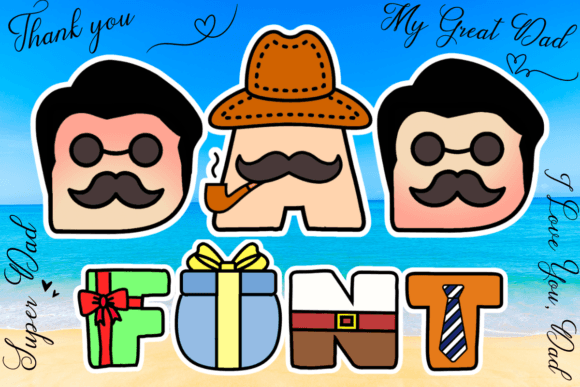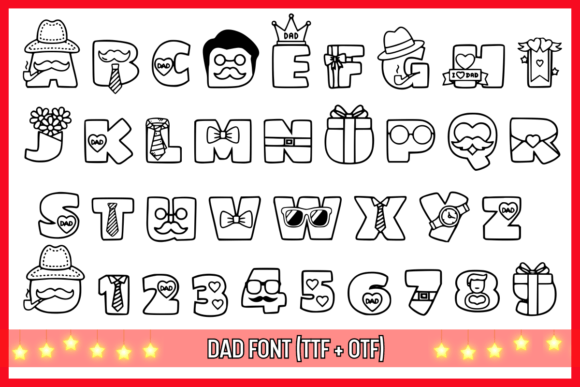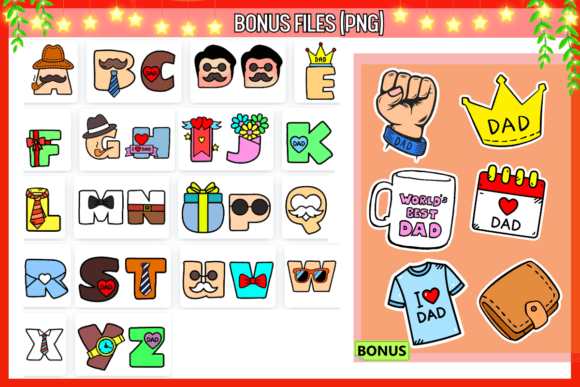
Dad Font
About the Dad Font
Elevate your designs with Dad Font, a font that combines sophistication with readability. “Dad” is a fun and decorative font where each letter looks like a dad. The letters are dressed in outfits and accessories that dads might wear, such as ties, hats, and glasses. The font includes colorful PNG files for each letter, making it easy to use for various creative projects.
“Dad” font’s playful, friendly personality makes it ideal for children’s books, greeting cards, or branding projects targeting a family-friendly audience. It works well in headlines, short slogans, or playful logos, adding a touch of quirky charm. However, its decorative nature makes it unsuitable for body text or UI elements where readability is paramount.
Pairing “Dad” with a clean sans-serif like Open Sans for body text provides excellent contrast and maintains visual clarity. For a more sophisticated look, consider pairing it with a classic serif font such as Garamond for elements requiring a touch of formality.
The font’s overall energy is lighthearted and approachable. Avoid using it in contexts requiring seriousness or professionalism.